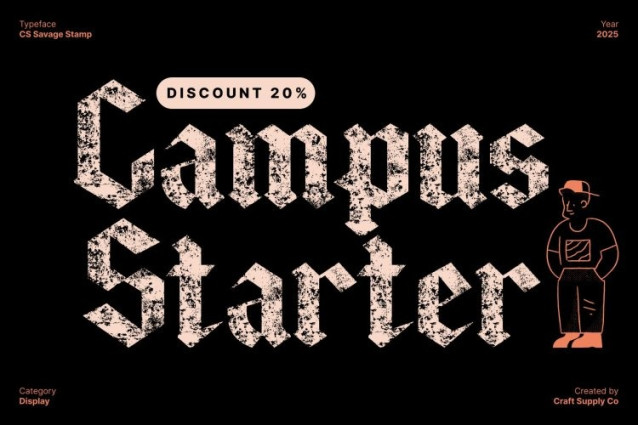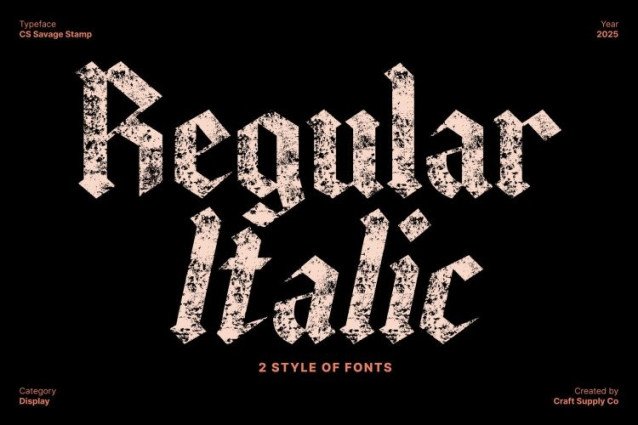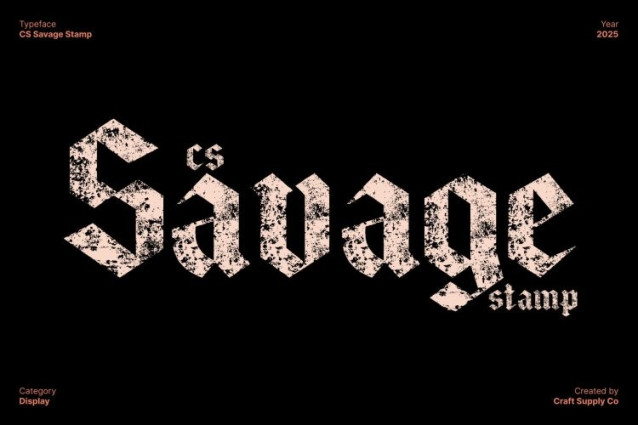
CS Savage Stamp Font This is a Gothic display font crafted to deliver intensity, drama, and artistic depth. Its bold, classic Gothic letterforms create a striking visual presence, while the distressed stamp effect adds rugged texture and vintage authenticity. The result is a typeface that feels mysterious, expressive, and unforgettable perfect for designers who want a font that commands attention with powerful style.
Bold Gothic Structure for Dramatic Visual Impact
Built with strong, heavy strokes and traditional Gothic influences, this font offers a dramatic silhouette that stands out instantly. The sharp forms, dark energy, and bold proportions make it ideal for dominating headlines and display layouts. Whether used for book covers, posters, or statement branding, it delivers a compelling sense of strength and intensity.
Vintage Stamp Texture for Authentic, Distressed Appeal
The defining feature of this font is its stamped, worn texture, which gives each letter a handcrafted, aged, and imperfect feel. This vintage effect introduces warmth and character, softening the rigid Gothic structure while enhancing its expressive, artistic identity.
Perfect for Artistic Branding, Posters, and Creative Displays
This font performs beautifully in projects that require strong visual storytelling. Its bold Gothic style blends seamlessly with the textured stamp effect, making it ideal for branding with attitude, dramatic posters, book titles, album covers, packaging, and artistic layouts.